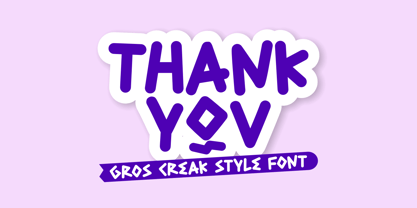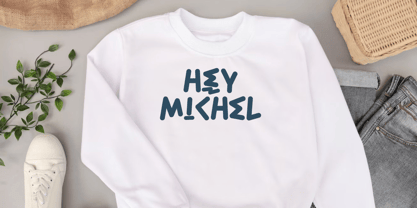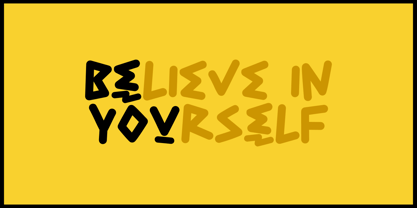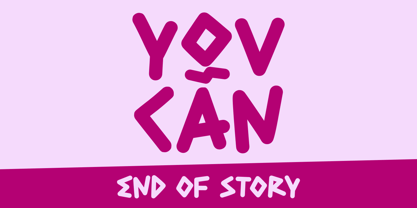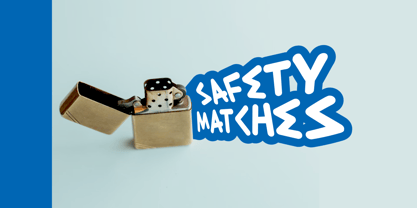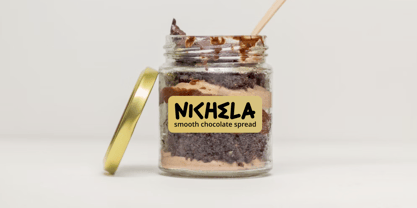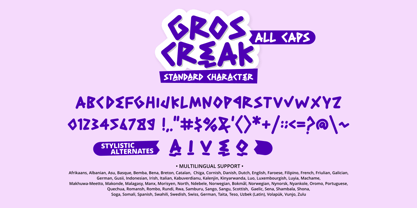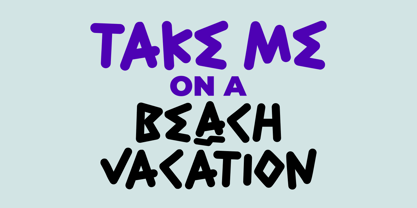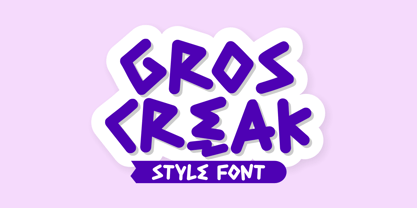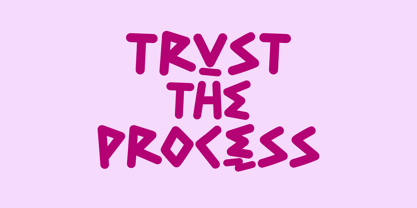
Gros Creak
por Mabhal Studio
A família de fontes Gros Creak foi desenhada por Abdullah Mabhal e publicada pela Mabhal Studio. Gros Creak contém 1 estilos. Saiba mais sobre esta família
Gros Creak Font is a playful and unique display font with a hand-drawn feel. It features quirky, irregular letterforms with a subtle ancient Greek-inspired aesthetic, including a sigma-style 'E' and diamond-shaped 'O'. This all-caps font is perfect for fun branding, catchy headlines, sticker designs, t-shirts, and creative packaging. Its bold and cheerful character adds a handmade personality to any project, making it ideal for kids' products, posters, and adventurous designs.
Designers: Abdullah Mabhal
Fundição: Mabhal Studio